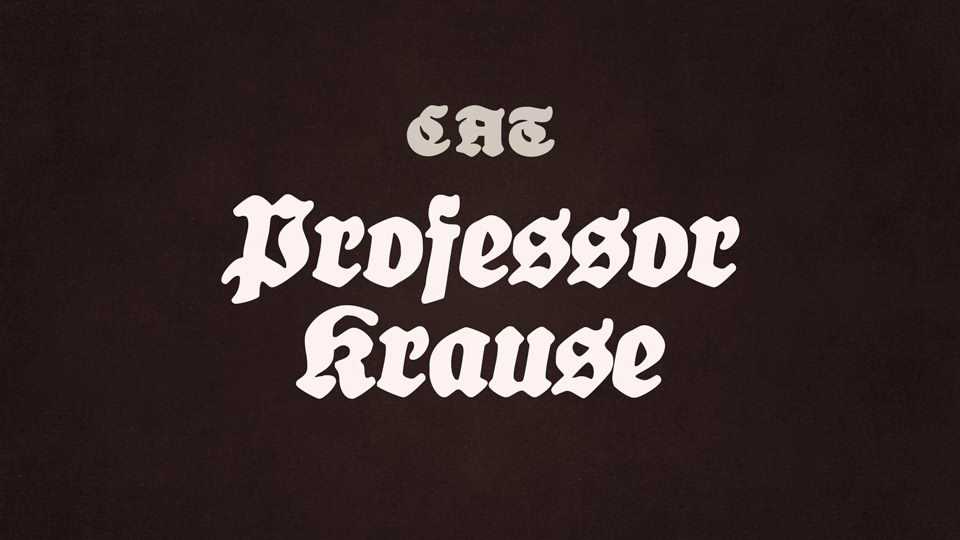
Download Professor Krause typeface, a blackletter font family in three styles, based on the design by Professor Wilhelm Krause published by L. Wagnere in 1930.